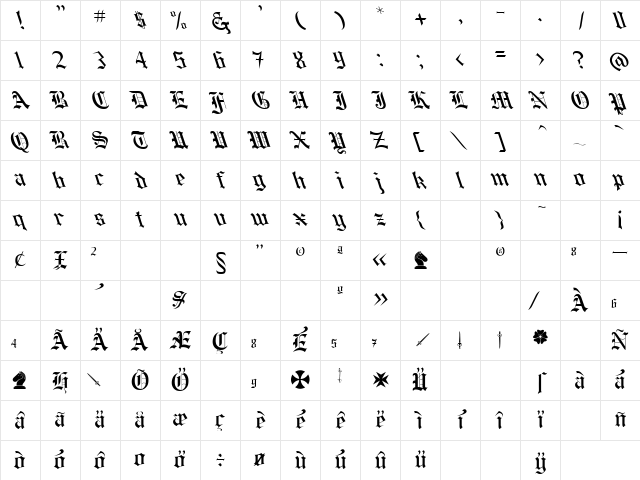
Helena Leftified Regular
Complete Helena Leftified Regular glyph index. Displaying only characters natively supported by Helena Leftified Regular font.
Design Context for Helena Leftified
Helena Leftified is a composed and adaptable typeface that performs quietly and consistently across a wide range of design contexts.